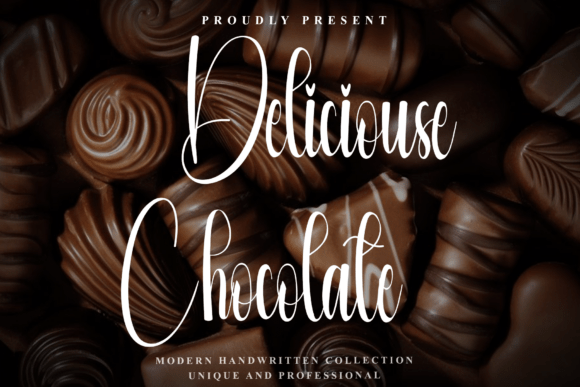
The Perfect Blend of Style and Sophistication
As designers, we’ve all been there – staring at a blank page, trying to bring a concept to life. The words “autumnal marketing campaign” flash before our eyes, and we know exactly what’s needed: a font that exudes warmth, elegance, and a touch of whimsy. That’s where Deliciouse Chocolate Font comes in – a sophisticated and rhythmic script font that embodies the perfect blend of style and sophistication.
This beautiful font is more than just a pretty face; it’s a premier asset for designers looking to elevate their seasonal marketing materials, artisanal food packaging, and boutique event invitations. With its high-contrast strokes, thick downstrokes, and delicate hairline connectors, Deliciouse Chocolate Font is a game-changer for those seeking to add a touch of luxury to their designs.
Deliciouse Chocolate Font Key Features
• Unique Characteristics: Deliciouse Chocolate Font features a unique blend of modern and vintage elements, with intricate details and ornaments that evoke a sense of luxury and sophistication.
• Font Style: Script, Casual, Elegant
Deliciouse Chocolate Font Review
First impressions are everything, and the Deliciouse Chocolate Font definitely delivers in that department. The font’s playful and whimsical feel is perfect for adding a touch of fun to any design project. ✨ I love how the font’s irregular shapes and lines evoke the sensation of melting chocolate – it’s a unique and clever idea.
The font’s versatility is another major plus. It can be used for everything from logo designs to menu boards, and it’s sure to add a smile to anyone’s face. ✨ The font’s wide range of styles, from bold and playful to cursive and elegant, makes it easy to find the perfect fit for any project.
• ⚠️ Limited character set: While the font’s unique style is a major draw, it’s only available in a limited character set. This can make it difficult to use for projects that require a wide range of characters.
• ⚠️ Not ideal for body text: Due to the font’s playful and whimsical nature, it’s not the best choice for body text. It can be difficult to read in larger blocks of text, and it may not be the most effective choice for conveying complex information.
Overall, the Deliciouse Chocolate Font is a fun and versatile font that’s perfect for adding a touch of whimsy to any design project. While it may have some limitations, its unique style and wide range of styles make it a great choice for designers looking to add some personality to their work.
The Deliciouse Chocolate Font is ideal for:
• Candy or chocolate-themed designs.
• Food or beverage branding.
• Wedding or event invitations.
• Any design that requires a playful, indulgent feel.